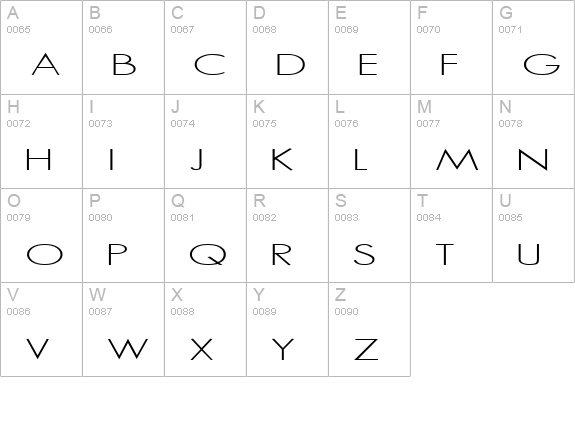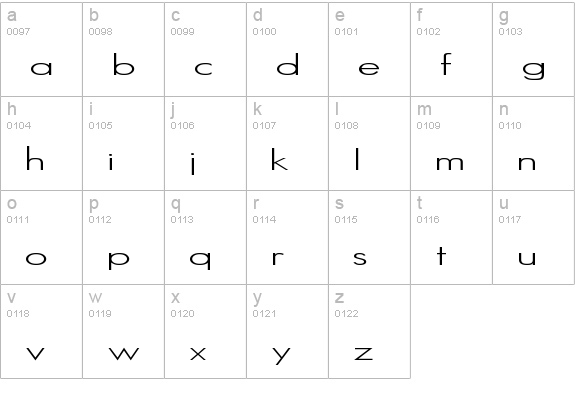
SansSerif Regular is the standard, neutral variant in the SansSerif typeface family \xE2\x80\x94 well suited to general body text, paragraphs, and standard typographic work.
SansSerif Regular is a modern and versatile font that exudes simplicity and elegance. With its clean lines and balanced letterforms, this font is perfect for a wide range of projects, from branding and logo design to website and app interfaces. Designed with readability in mind, SansSerif Regular offers a smooth and effortless reading experience. Its moderate stroke width and consistent spacing between letters ensure optimal legibility at any size, making it suitable for both print and digital media. One of the standout features of SansSerif Regular is that it is freely available to download at FontsMarket.com. This means that you can access this high-quality font without any cost, allowing you to enhance your designs without breaking the bank. Whether you're a professional designer or a hobbyist, SansSerif Regular offers a valuable resource that can elevate your projects to the next level. The versatility of SansSerif Regular extends to its language support, as it includes a wide range of characters and glyphs to accommodate various writing systems. This makes it a suitable choice for multilingual projects and ensures that your message can reach a diverse audience. In addition to its aesthetic appeal and user-friendly features, SansSerif Regular also offers excellent compatibility with different software and platforms. Whether you're using it in Adobe Creative Cloud applications or Microsoft Office, you can trust that SansSerif Regular will deliver consistent and reliable performance. Overall, SansSerif Regular is a font that effortlessly combines style and functionality. Its sleek design, readability, and free availability at FontsMarket.com make it a must-have for any designer or creative individual looking to make a lasting impression. Download SansSerif Regular today and unlock the potential for limitless creativity in your projects.